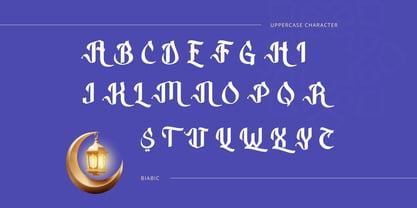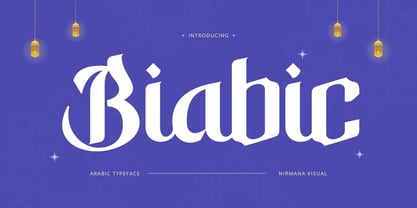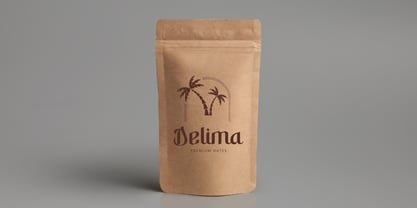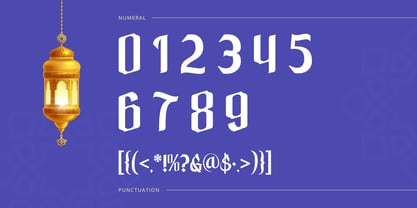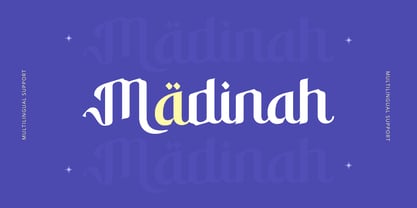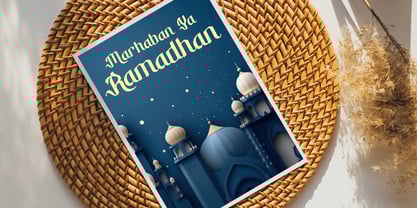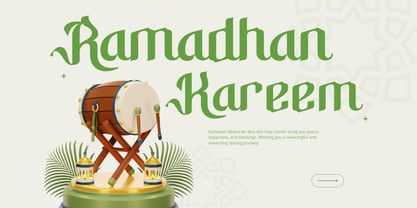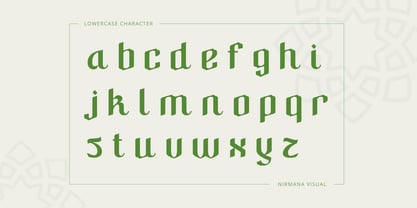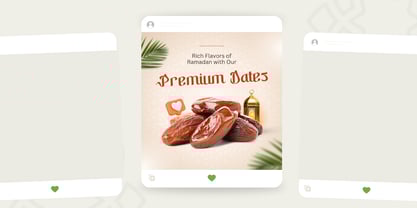
Biabic Arabic
von Nirmana Visual
Die Schriftfamilie Biabic Arabic wurde von Sigit Dwipa entworfen und von Nirmana Visual veröffentlicht. Biabic Arabic enthält 1 Stile. Mehr über diese Familie
Introducing Biabic Arabic, an elegant Arabic-style font inspired by traditional calligraphy, specially designed for Ramadan and Islamic-themed projects. With its graceful curves and flowing strokes, this font embodies the spirit of the holy month, perfect for greeting cards, invitations, social media, and branding. Whether for digital or print, Biabic Arabic adds a spiritual and artistic touch, making your designs shine with the beauty of Arabic calligraphy.
Designer: Sigit Dwipa
Foundry: Nirmana Visual